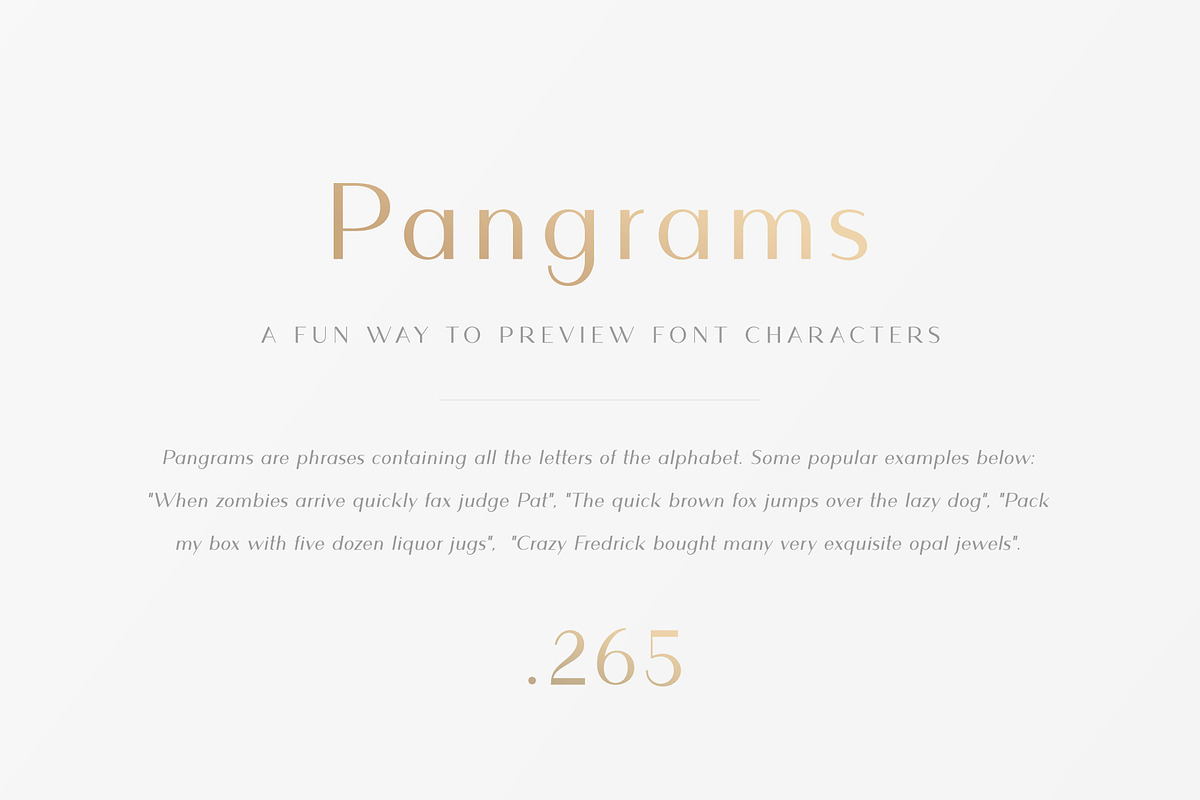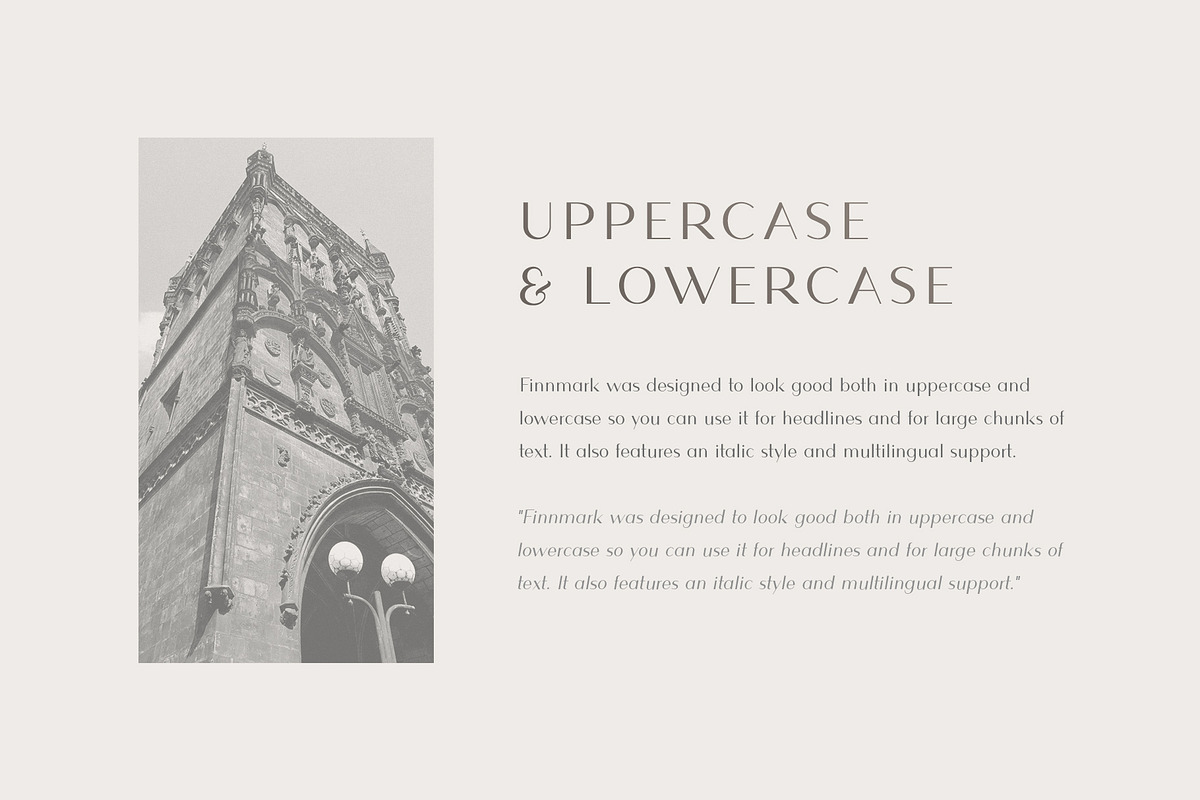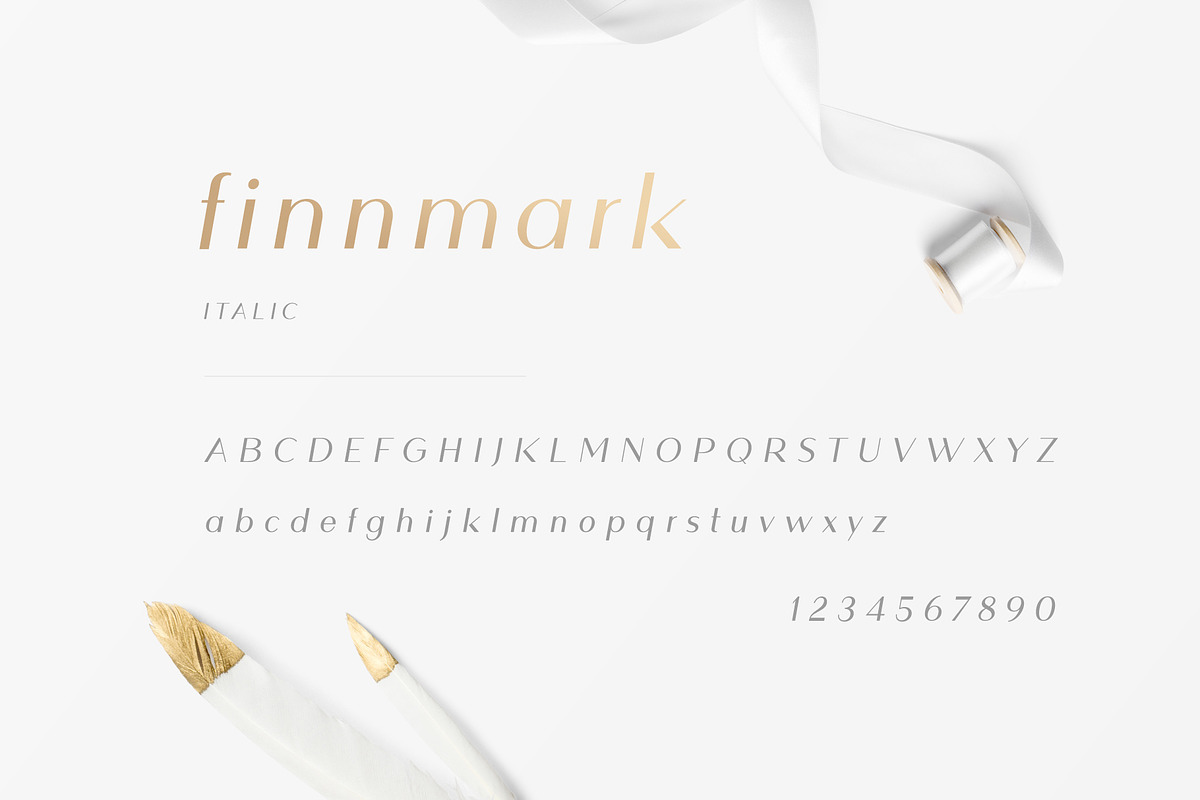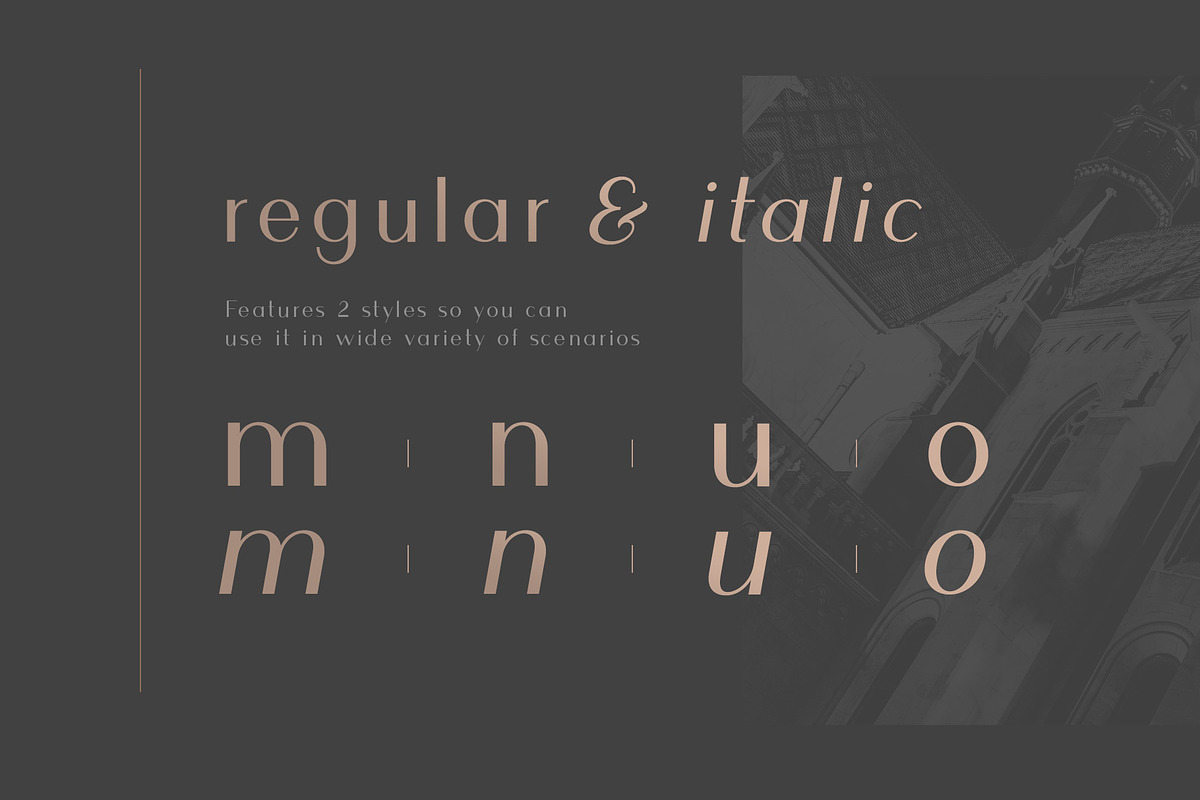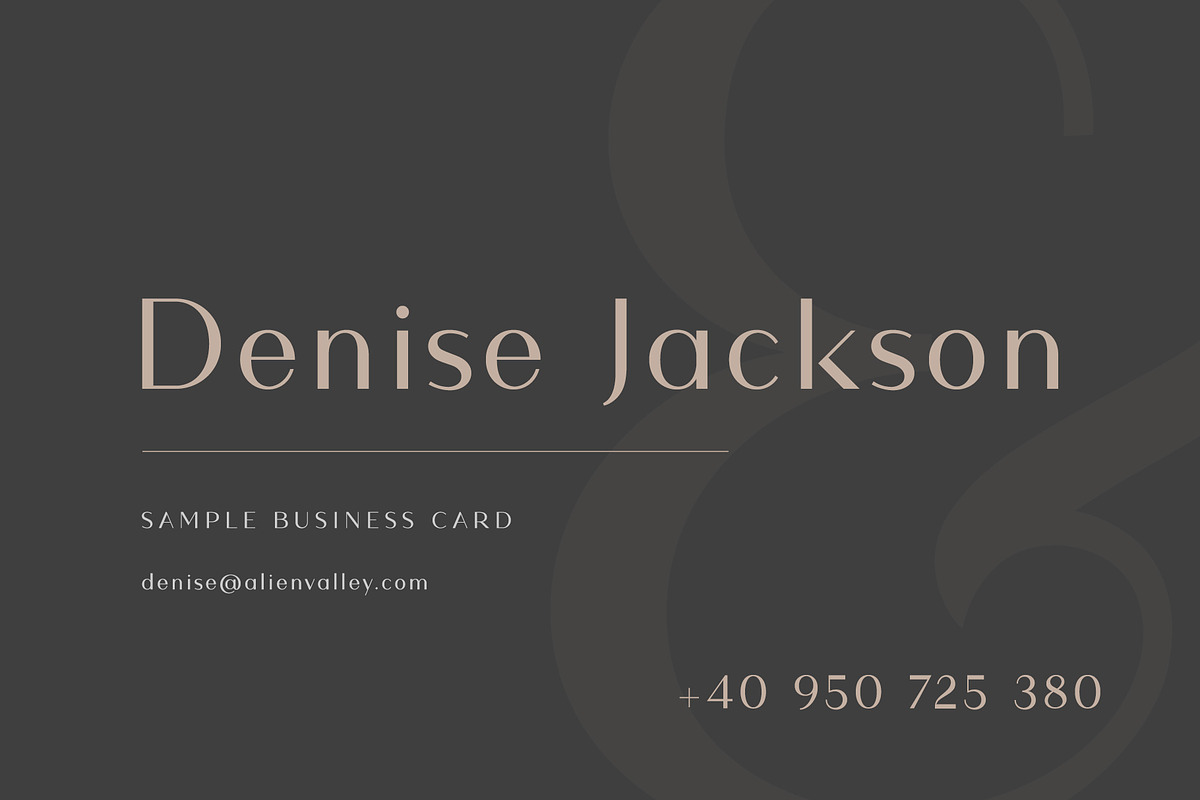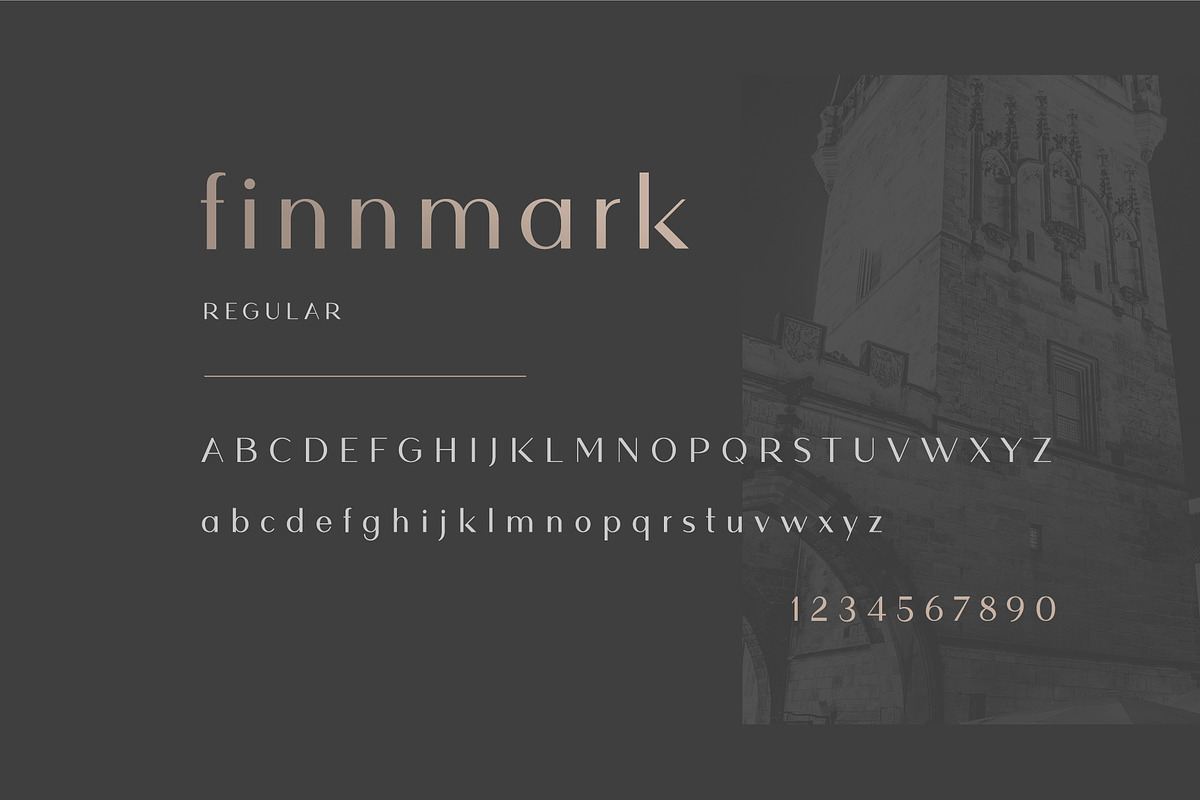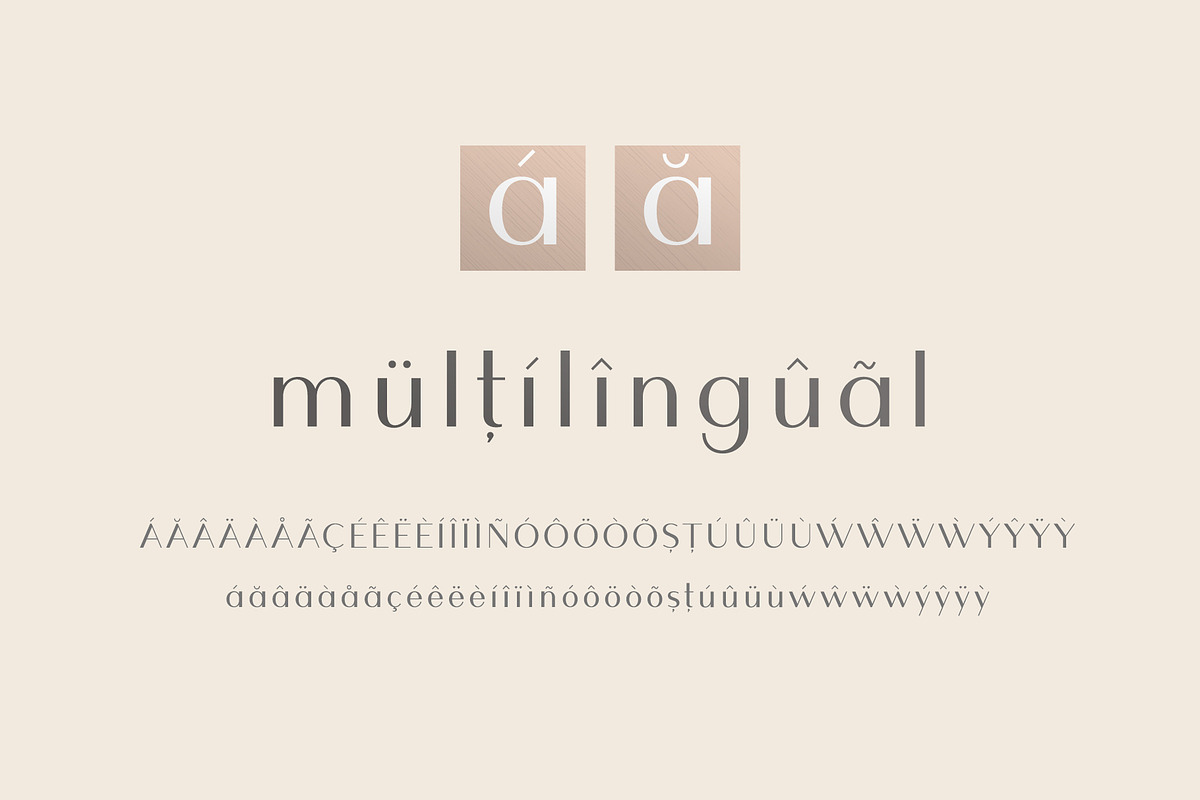
Finnmark - Elegant Sans Typeface
Finnmark is a new elegant sans serif typeface featuring uppercase & lowercase letters plus multilingual support. It looks great when combined with script or signature fonts and it comes with 2 styles: regular & italic
2 Styles (Regular, Italic)
Oldstyle figures (uneven baseline for numbers)
- Finnmark Regular
- Finnmark Italic